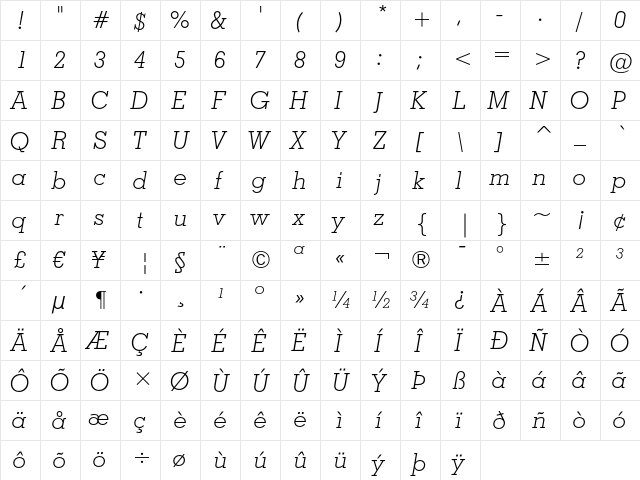
Geometric Slabserif 703 Light Italic Font Preview
Design Context for Geometric Slabserif 703 Typeface
Geometric Slabserif 703 combines the readability of serif typography with the visual weight of a slab construction, resulting in a typeface that feels both authoritative and approachable. The slanted form adds forward momentum and visual energy. Its slender proportions lend an understated elegance to any composition.
Works well in editorial design, news publishing, impactful branding, and poster typography.
Pro Tip: Try Geometric Slabserif 703 set tight in headlines for a classic editorial feel. Its slab serifs create strong horizontal rhythm that anchors a page layout.